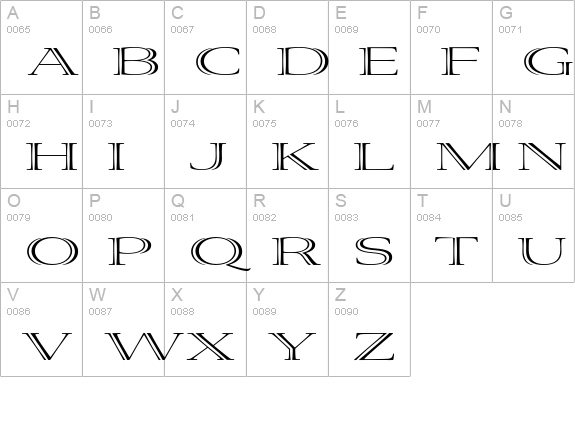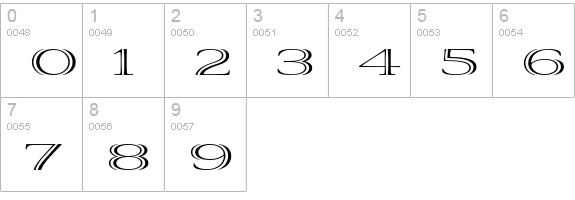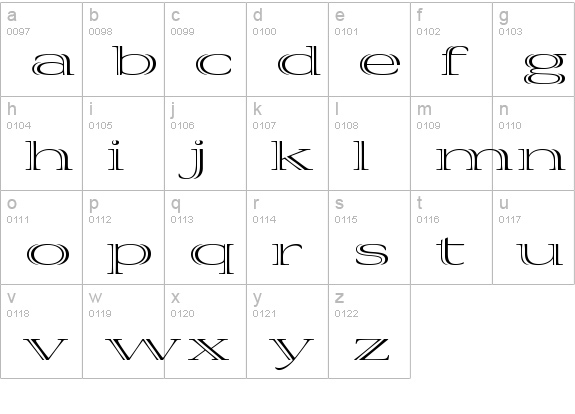
Viva Std ExtraExtended Font Details
Viva Std ExtraExtended font is a stunning display typeface that exudes elegance and sophistication. With its elongated letterforms and sleek lines, this font captures attention and adds a touch of refinement to any design project. Designed with versatility in mind, Viva Std ExtraExtended is perfect for a wide range of applications, from branding and logo design to headlines and editorial layouts. Its clean and modern aesthetic ensures legibility, even at smaller sizes, making it an ideal choice for both print and digital projects. But what sets Viva Std ExtraExtended font apart is not just its exceptional design, but also its accessibility. This font is available for free download at FontsMarket.com, making it easily accessible to designers and enthusiasts alike. Whether you're a professional designer or a hobbyist, you can freely incorporate this font into your work without any restrictions. With its generous character set, Viva Std ExtraExtended font supports multiple languages and provides a wide range of glyphs, including alternates and ligatures. This allows you to create unique and captivating typographic compositions that truly stand out. So, if you're looking to elevate your designs with a font that combines artistry and accessibility, look no further than Viva Std ExtraExtended. Download it for free at FontsMarket.com and unlock a world of creative possibilities.